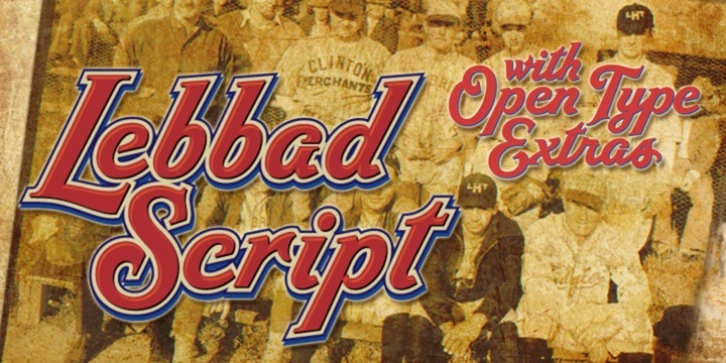
Lebbad Script was designed by James Lebbad and published by Lebbad Design. Lebbad Script contains 1 style.
Lebbad Script is a bold decorative script font. It's ideal to give your headlines a sporty, retro feel. This original font design contains an alternate set of connecting lower case characters and ligatures.